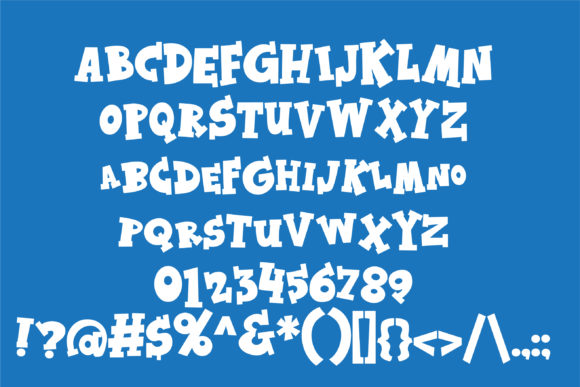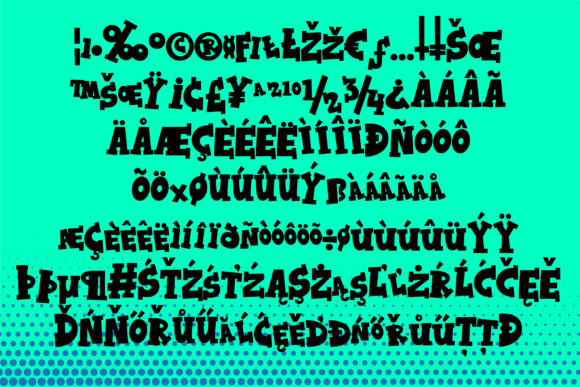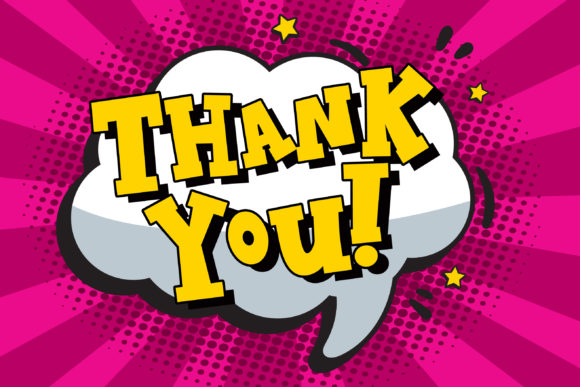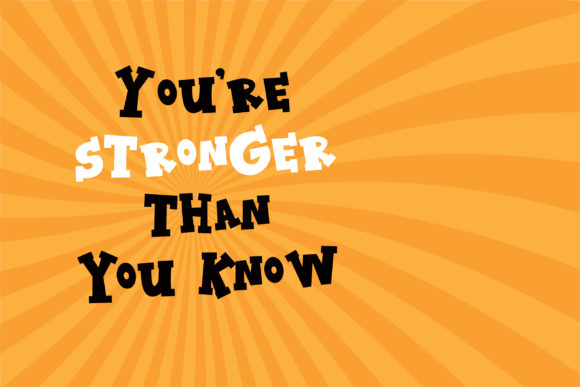
Introduction to Kaboing Font Font
Fonts play a crucial role in design, and the Kaboing Font font is a typeface that brings both character and versatility to any project. Whether you’re working on a branding project, a website, or a print design, the Kaboing Font font offers a unique style that can elevate your work.
Kaboing is a fun and cool display font with a distinct comic style.
Get inspired by its unique flavor .
Key Features of Kaboing Font Font
Why Choose Kaboing Font Font?
The Kaboing Font font is more than just a typeface – it’s a design tool that helps you communicate your message with style and clarity. Its unique character set and versatile design make it suitable for a wide range of applications, from elegant invitations to bold headlines.
With its carefully crafted letterforms and balanced proportions, the Kaboing Font font ensures readability and visual appeal across all mediums.
What makes Kaboing Font font special?
The Kaboing Font font stands out with its unique design, exceptional readability, and versatility across various design applications.